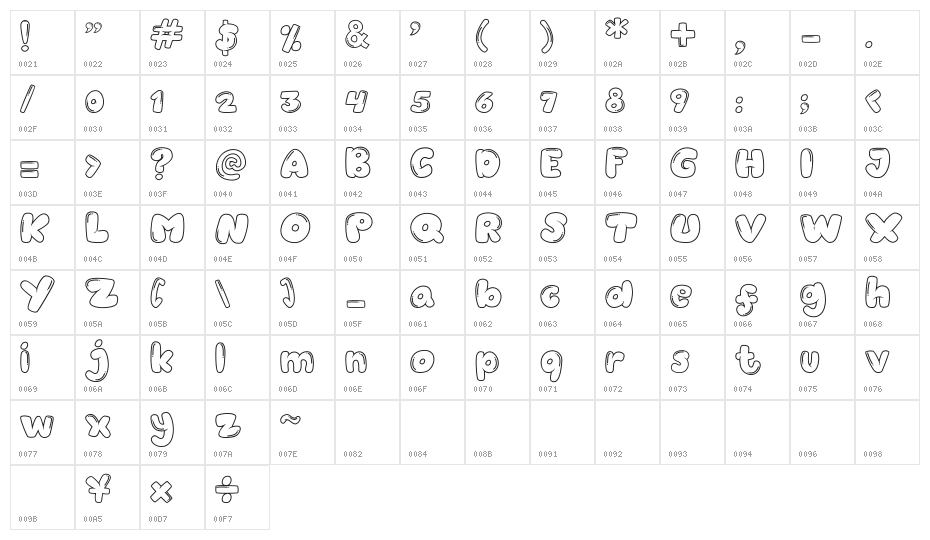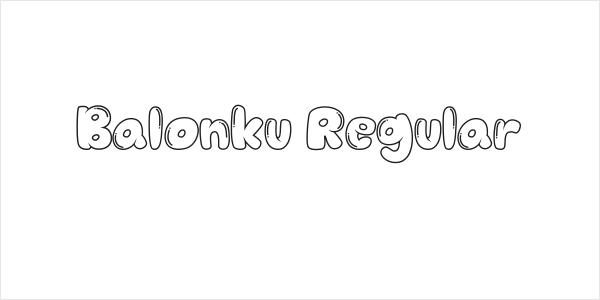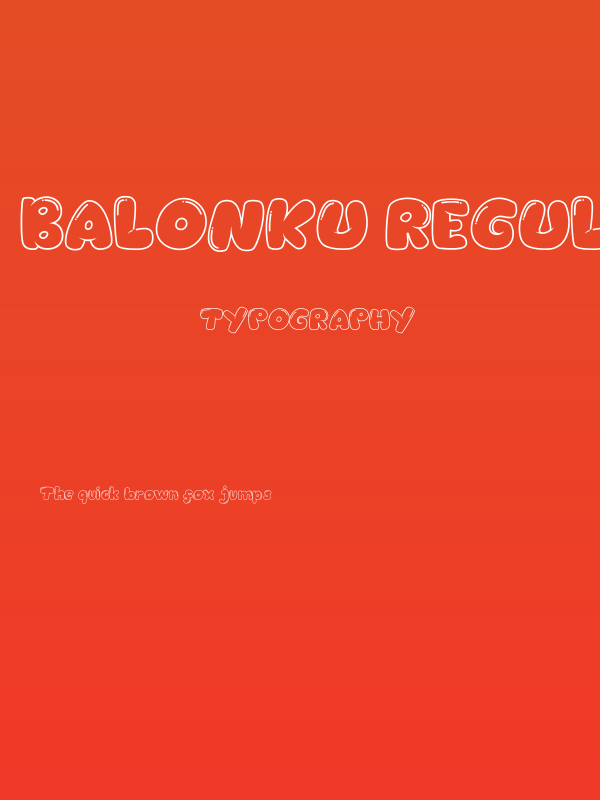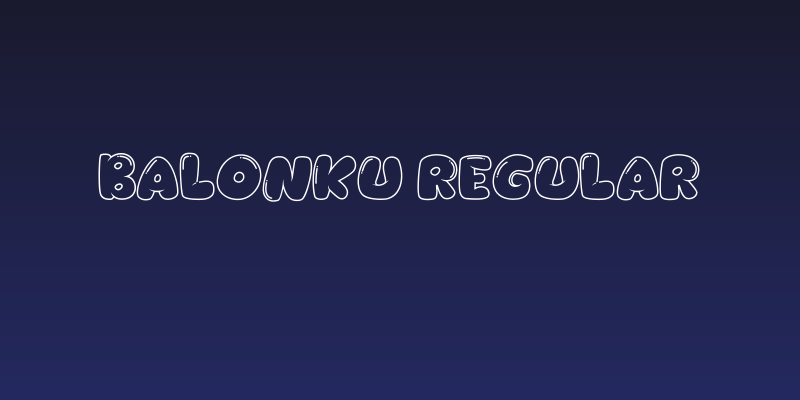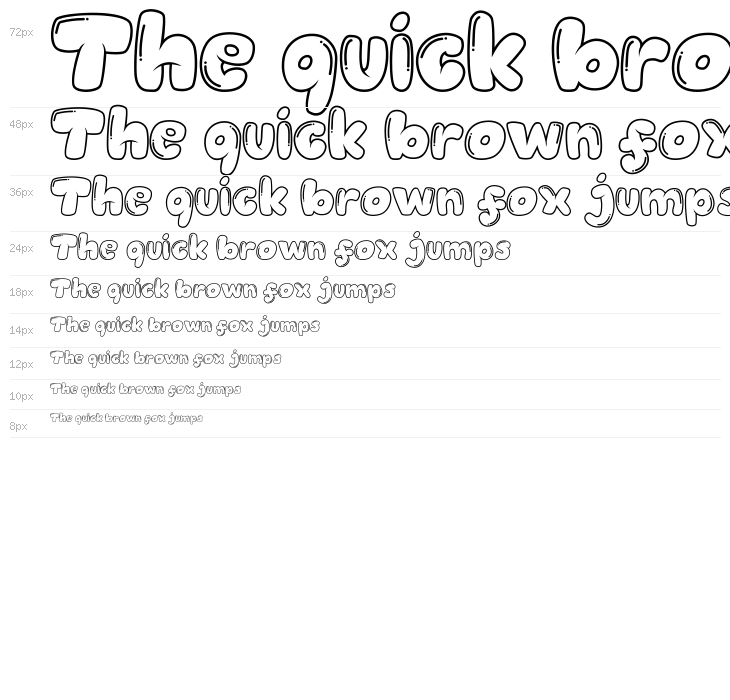
Balonku Regular Font
Balonku Regular Description
This playful and whimsical font features a bubbly, balloon-like design that exudes a sense of fun and lightheartedness. Each character is outlined, giving it a three-dimensional appearance, reminiscent of inflated balloons. The rounded edges and consistent thickness of the strokes contribute to its approachable and friendly vibe. The font maintains uniformity across uppercase, lowercase, numbers, and special characters, ensuring readability while retaining its unique style. Its cartoonish aesthetic makes it ideal for projects that aim to capture a youthful or playful spirit.
Overall StylePlayful, Whimsical
Proposed ProjectsIdeal for children's books, party invitations, playful branding, and educational materials.